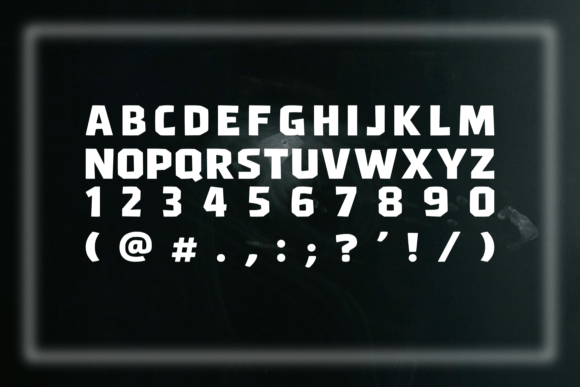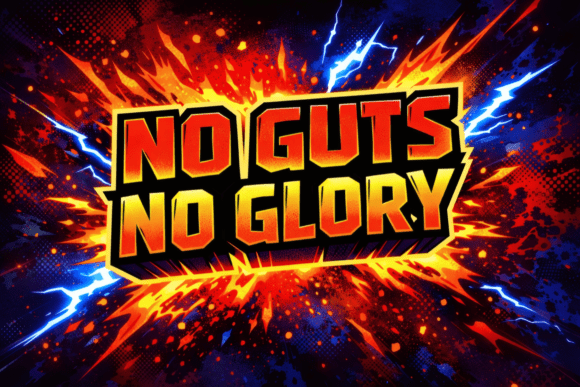
Time to Make a Statement: The Power of Bold Typography
Have you ever scrolled through a social media feed, and one post catches your eye? Maybe it’s a bold, eye-catching font that screams ‘attention’? That’s the kind of impact the Bold Blokkr Font can create. This powerful display typeface is designed to command attention, making it perfect for high-impact headlines, posters, or streetwear t-shirts.
As a designer, you’re always on the lookout for fonts that can elevate your work and make it stand out from the crowd. The Bold Blokkr Font is that game-changer. With its chunky, modern design and strong typography, it’s the go-to choice for bold urban style, sports branding, and eye-catching logos. Whether you’re creating event posters, album cover designs, or social media graphics, this font is sure to make a lasting impression.
Bold Blokkr Font Key Features
- Unique Characteristics: The Bold Blokkr Font features a unique blend of modern and industrial design elements, with bold lines and geometric shapes that give it a distinctive look.
- Weight and Style: The font is available in multiple weights, including Light, Regular, Medium, Bold, and Black, as well as several styles, including Regular, Italic, and Oblique.
Designer Review: Bold Blokkr Font
I recently had the chance to work with the Bold Blokkr Font, and here’s my honest take on it.
- ✨ The font’s bold weight is perfect for creating eye-catching headings and titles.
- ✨ The font’s geometric shape gives it a modern and sleek look that’s perfect for minimalist designs.
- ✨ The font’s high x-height makes it easy to read, even at small sizes.
- ⚠️ The font’s limited character set may not be suitable for complex text-based projects.
- ⚠️ The font’s lack of italic and bold-italic styles may limit its use in certain contexts.
- ⚠️ The font’s weight may not be suitable for long blocks of text, as it can be overwhelming.
The Bold Blokkr Font is a solid choice for designers looking to add a touch of modernity to their projects. While it may have some limitations, its unique shape and high x-height make it a great option for headings and titles. However, it’s not the best choice for complex text-based projects or long blocks of text.
Bold Blokkr Font is ideal for creating bold and eye-catching headlines, titles, and headings. Use it to add a touch of sophistication and elegance to your designs. Some common use cases include:
- Headlines and titles in magazines, brochures, and other print materials.
- Logo design and branding materials.
- Infographics and data visualizations.
Alternatives to Bold Blokkr Font
Arial Black is a sans-serif font that is known for its bold and modern look. It is often used in titles, headings, and other display typography. Compared to Bold Blokkr Font, Arial Black is more straightforward and lacks the distinctive block-like features of Blokkr.
Impact is a sans-serif font that is designed to be bold and eye-catching. It is often used in display typography, such as titles and headings. Impact is similar to Bold Blokkr Font in that it is bold and attention-grabbing, but it has a more angular and aggressive feel.
3. Rockwell
Rockwell is a slab-serif font that is known for its strong and sturdy look. It is often used in body text and display typography, such as titles and headings. Compared to Bold Blokkr Font, Rockwell is more conservative and lacks the bold, block-like features of Blokkr.